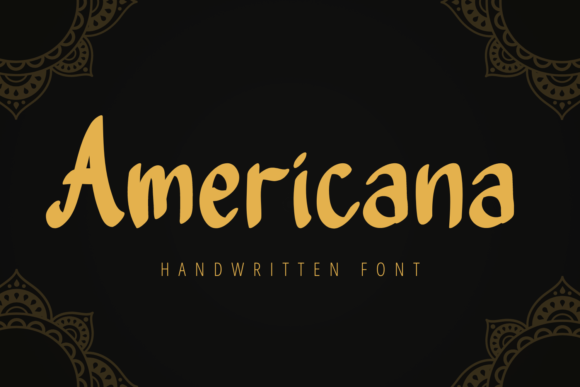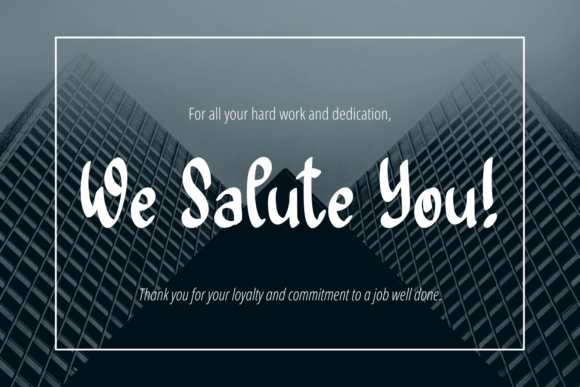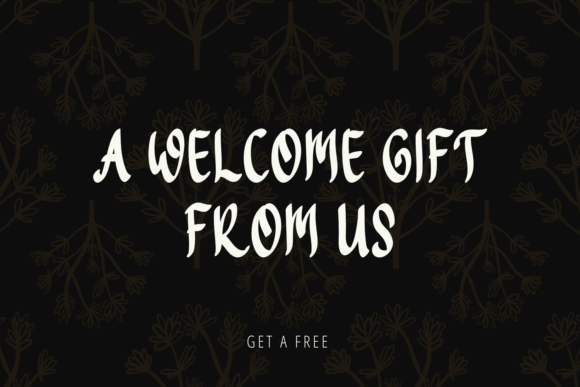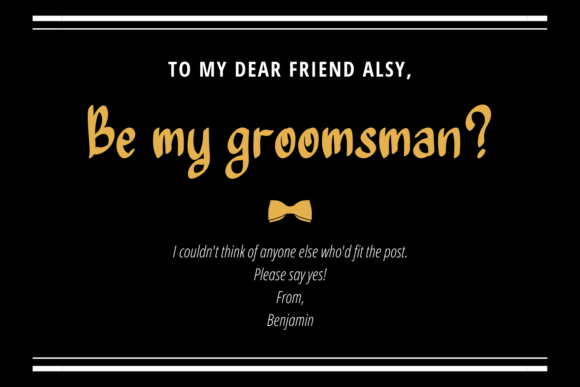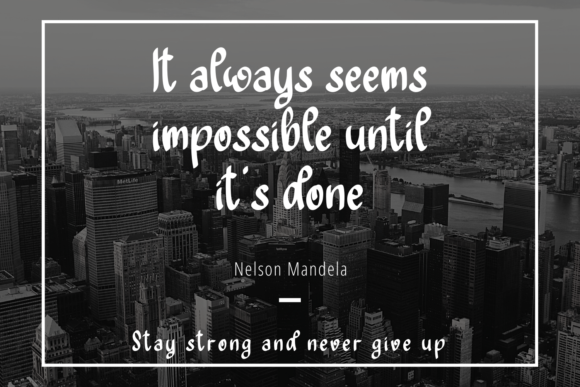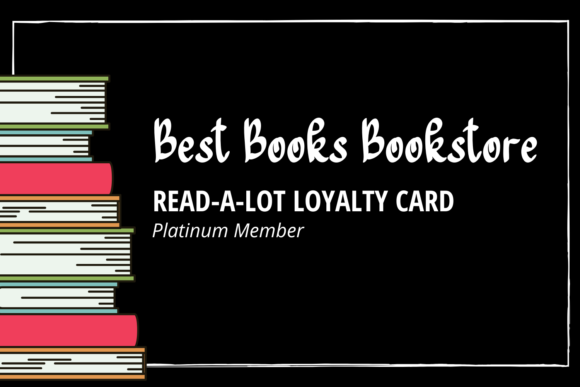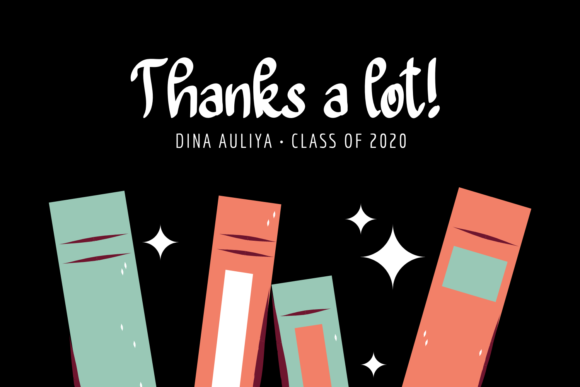
Americana
About Americana Font
Americana is a casual handwritten font. Its natural and unique style makes it incredibly fitting to a large pool of designs. It is suitable for any branding, product packaging, invitation, quote, t-shirt, label, poster, logo that you wish to develop.